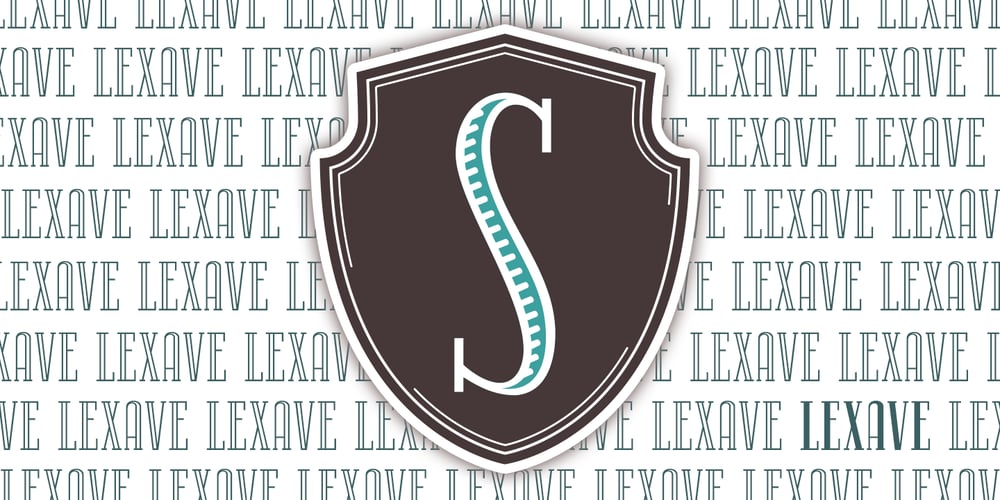
Lexave Font Family was designed by Alec Julien and published by Haiku Monkey. Lexave contains 6 styles and family package options. Lexave is a condensed display font that thrives at huge sizes. It comes in three styles (regular, outline, and fancy), each of which has an italic version. Mix and match styles for elegant and funky designs for packaging, posters, or any other print or web project that needs to be big and proud. Lexave is chock full of accented characters, along with a handful of alternate glyphs for extra versatility and pizazz.